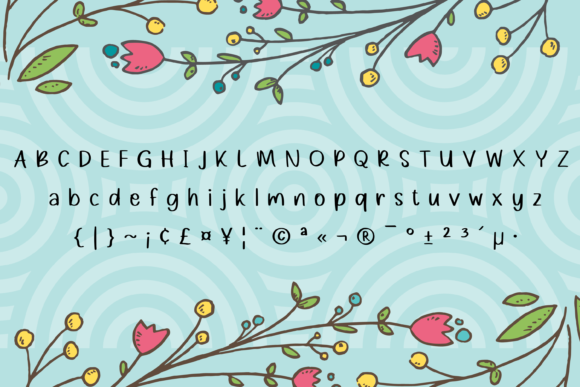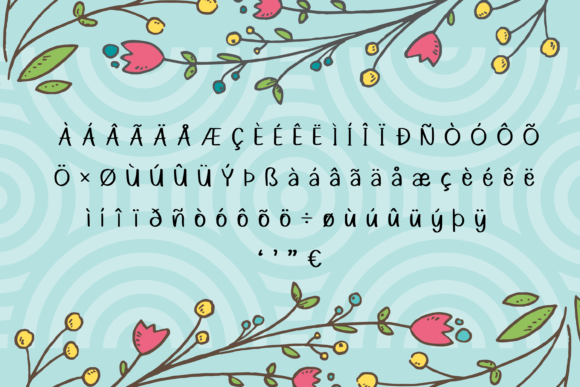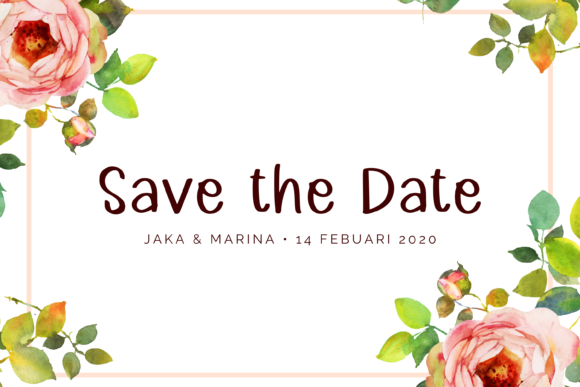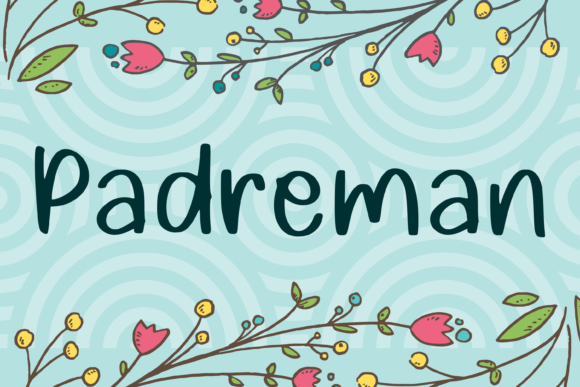
Introduction to Padreman Font
Padreman is a sweet and friendly handwritten font.
Key Features of Padreman Font
Why Choose Padreman Font?
Padreman Font offers exceptional quality and versatility, making it a valuable addition to your design toolkit. Whether you’re creating for personal projects or commercial use, Padreman Font delivers professional results.